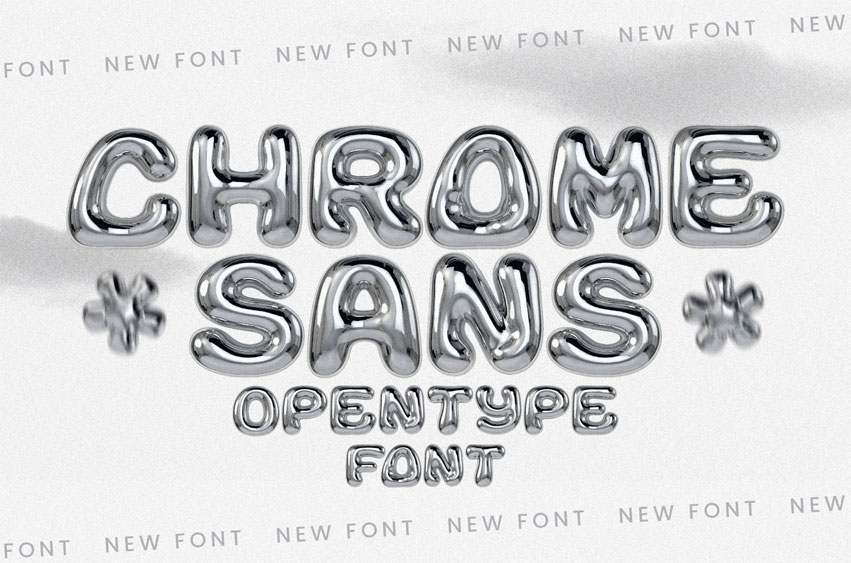
Chrome Sans Font
Chrome Sans Font is a high-shine, 3D-inspired OpenType font that captures the essence of futuristic nostalgia. Designed with a “liquid metal” aesthetic, this font mimics the look of inflated chrome balloons and molten silver, making it the perfect centerpiece for any modern graphic project.
• Music Album Covers: specifically for genres like Hyperpop, Techno, Heavy Metal, Trap, or EDM.
• Event Posters: Flyers for raves, underground club nights, or futuristic art exhibitions.
• Game UI: Title screens for cyberpunk, sci-fi, or racing video games.
• Editorial Design: Magazine spreads focusing on future trends, digital culture, or avant-garde fashion.